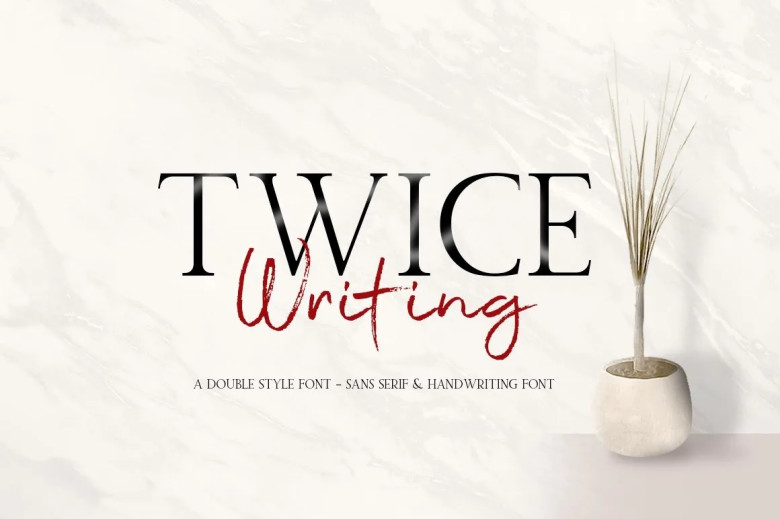
Twice Writing Font Duo
Twice-Writing is an elegant duo font combining serif and script brush, perfect for posters, magazine covers, book covers and banners. Use this font to create stunning designs in an array of projects; use Twice-Writing’s versatility in adding it to your ideas and watch how they shine!
Twice Writing Font Duo